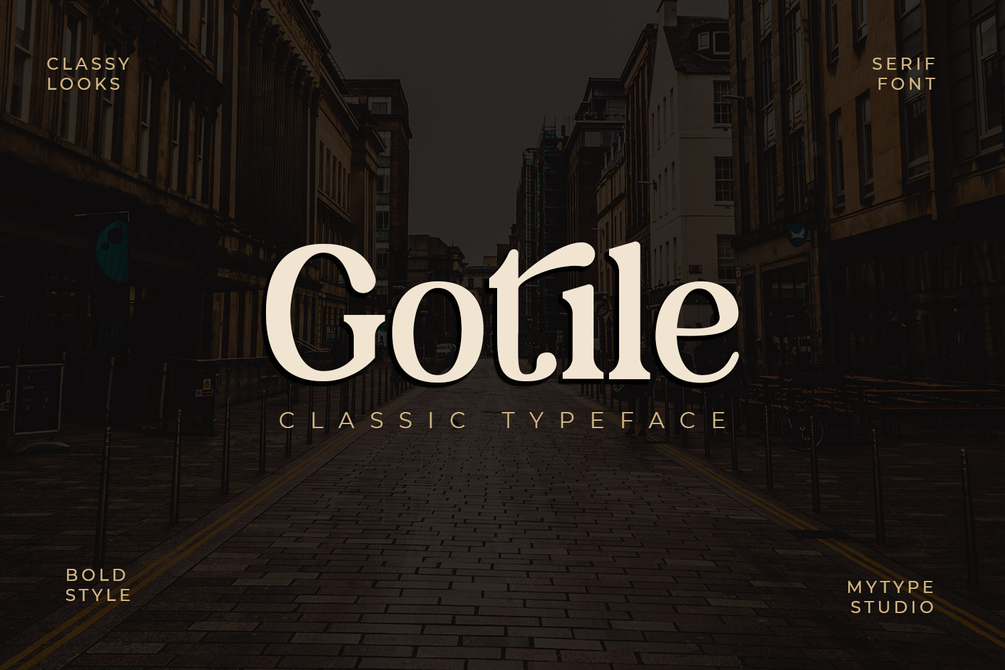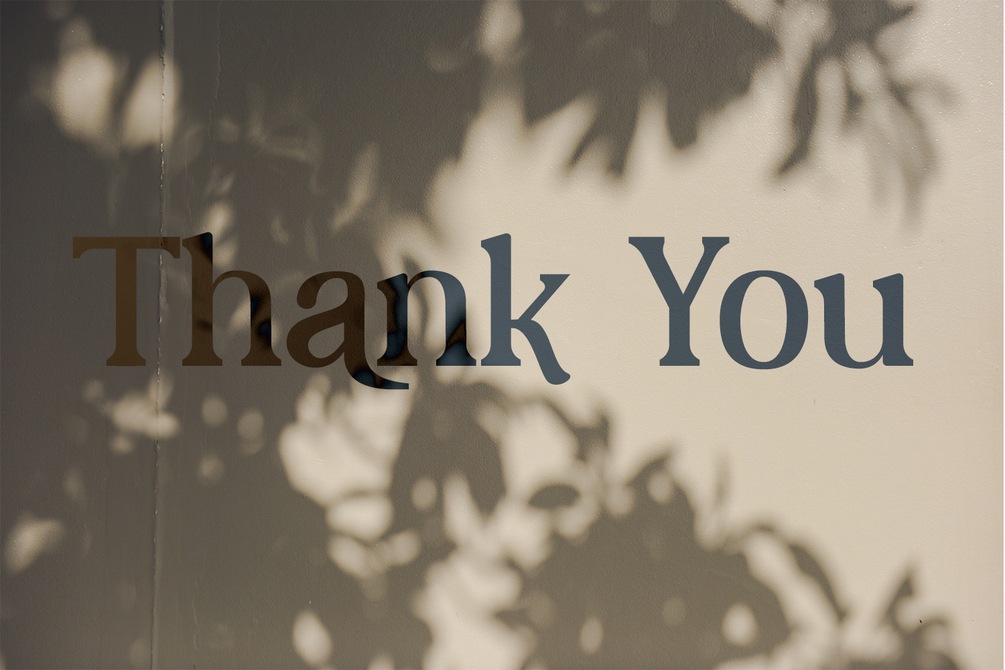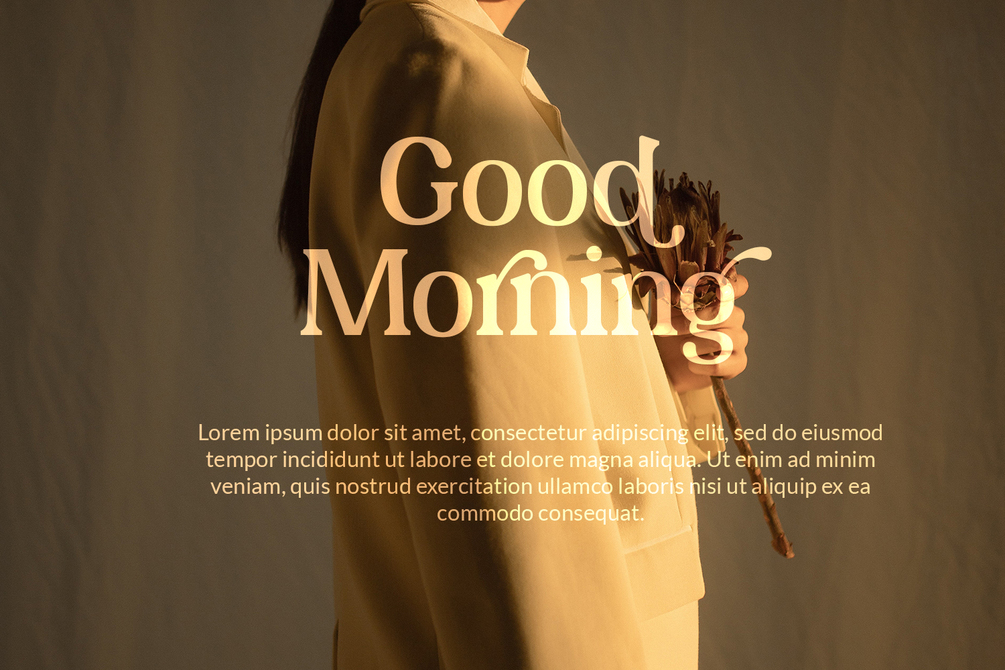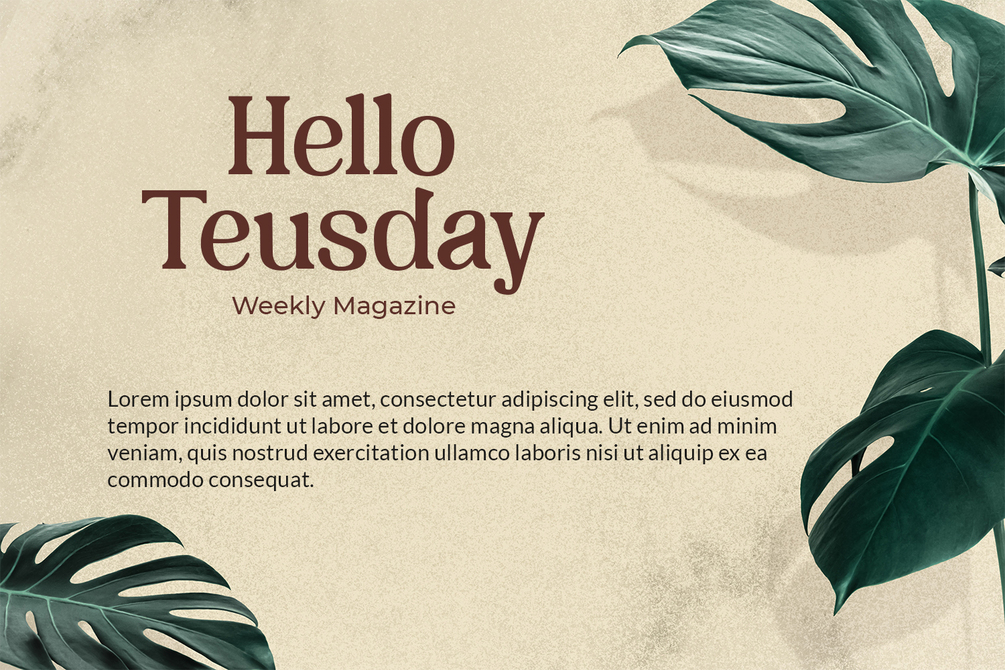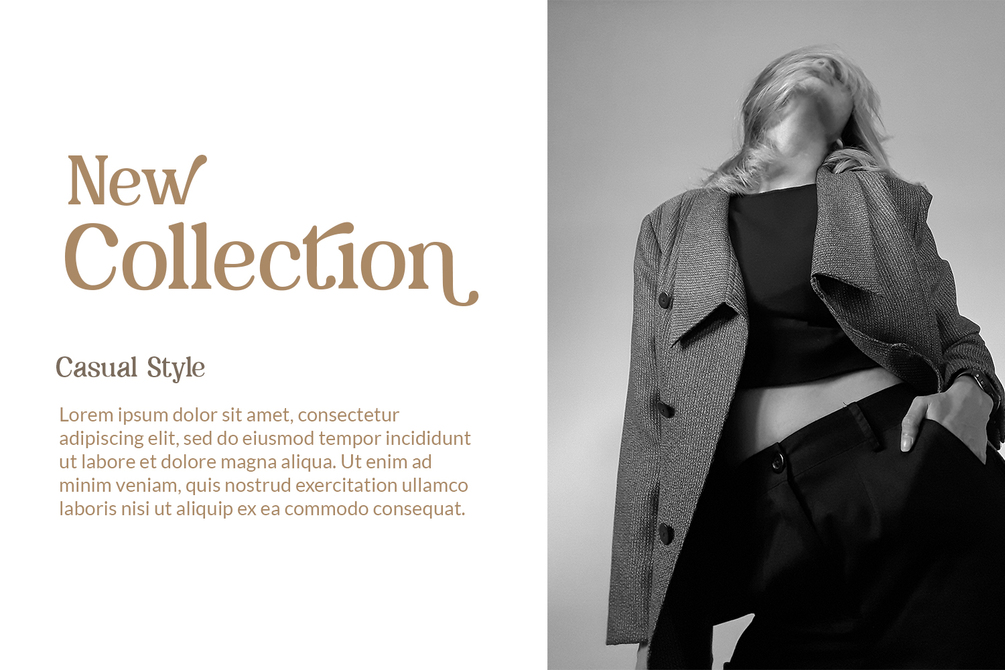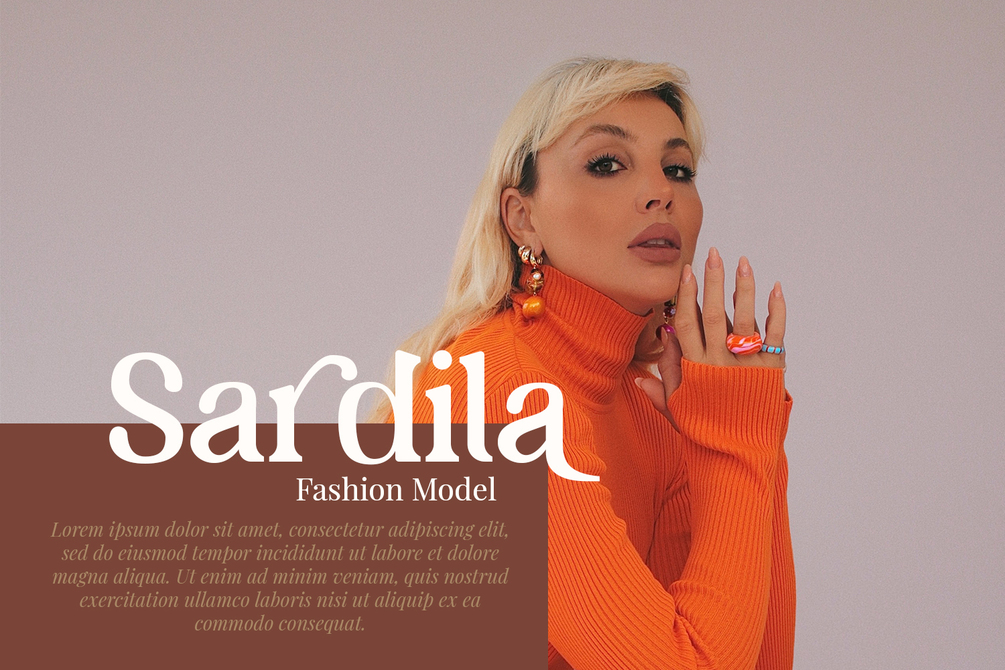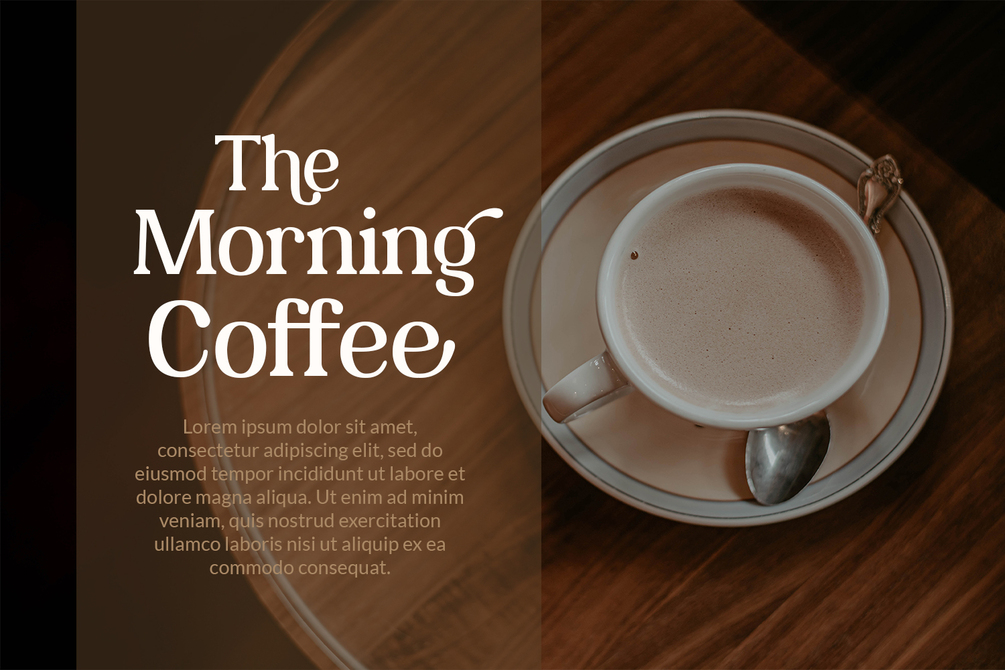
Gotile - Classic Typeface
Gotile is serif collection font with natural movement make looks elegant, classy and beauty for your project. Whether you are using it for quotes, t-shirts, titles, merchandise, brand names, book covers, posters, or just any creation that requires a touch of beauty, this font is a great choice.